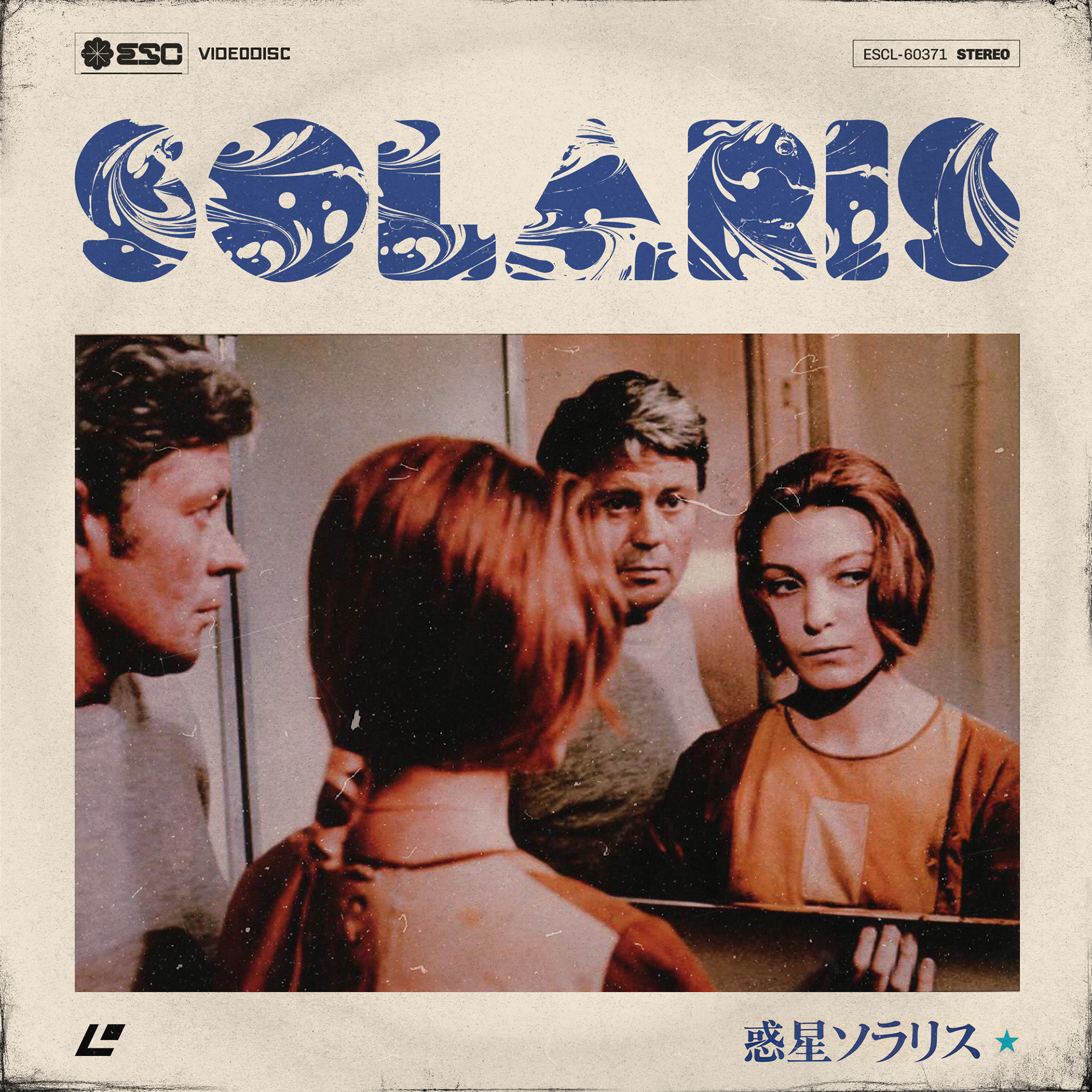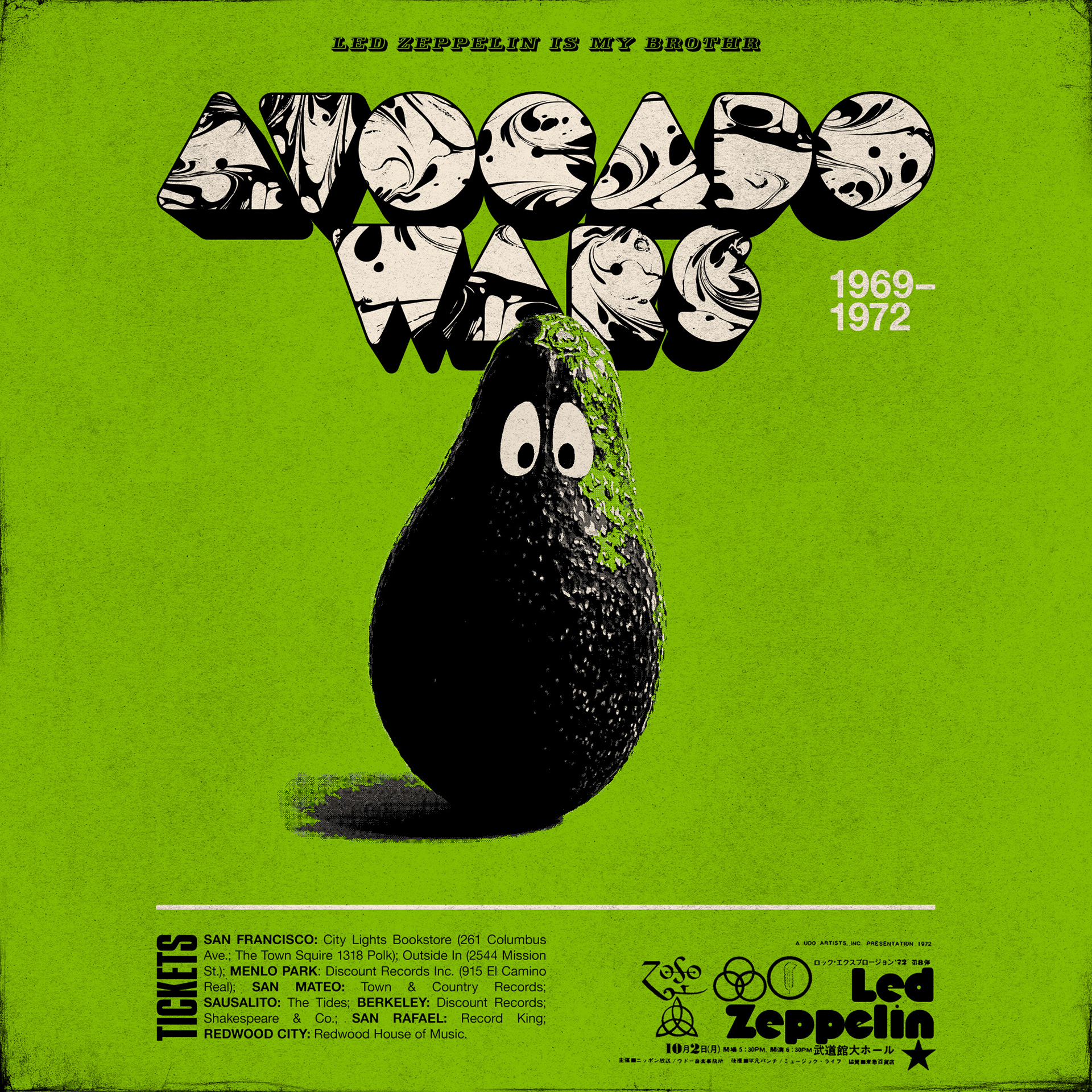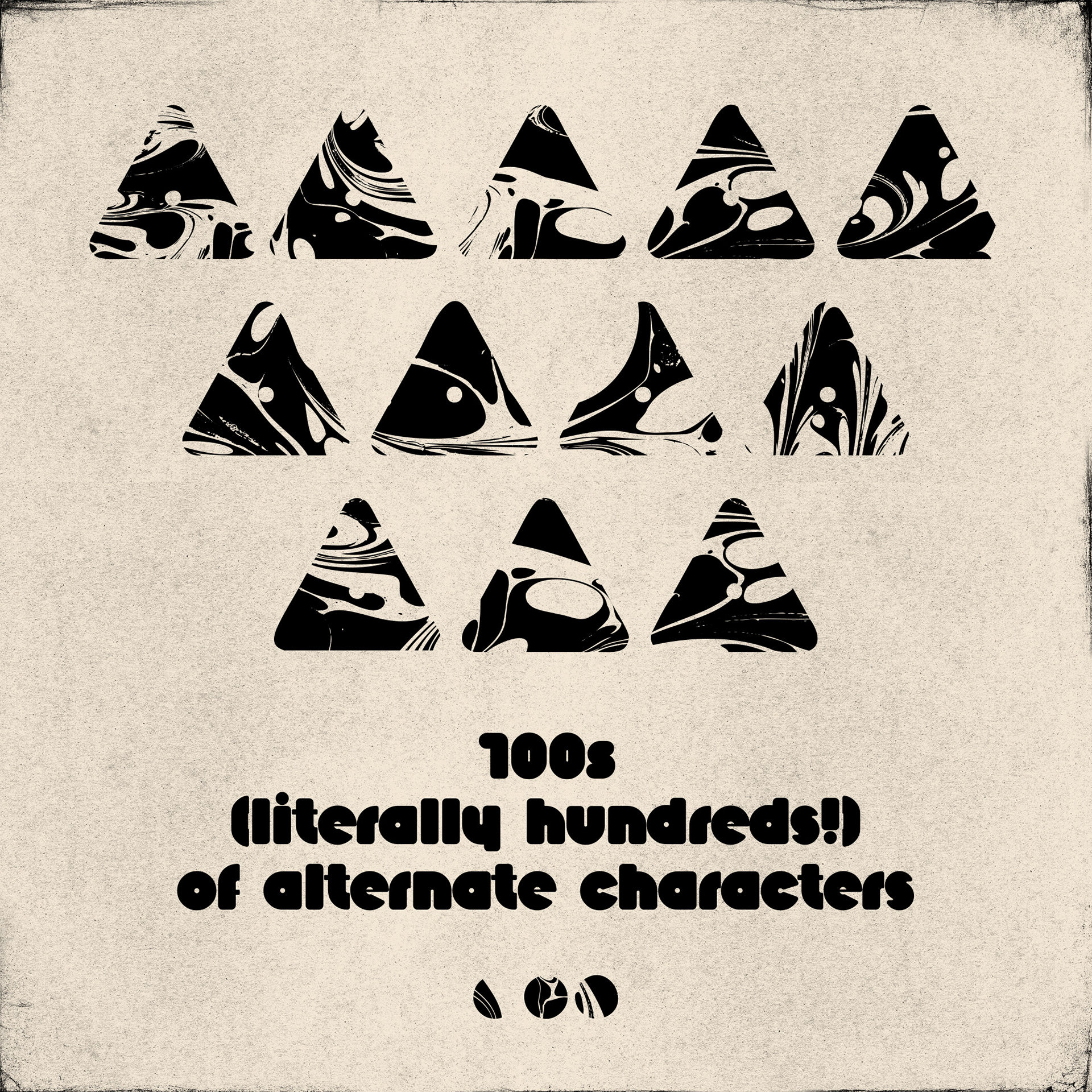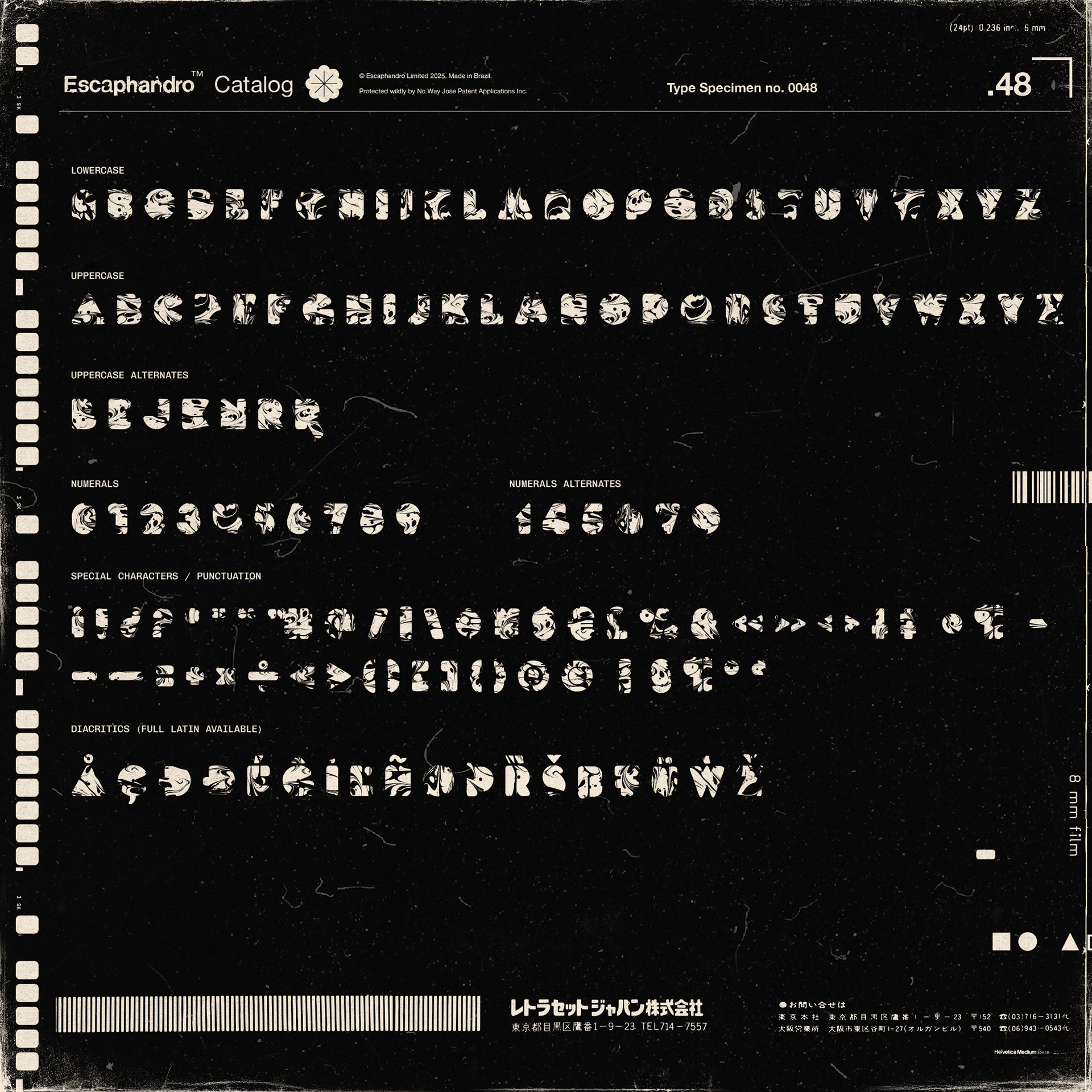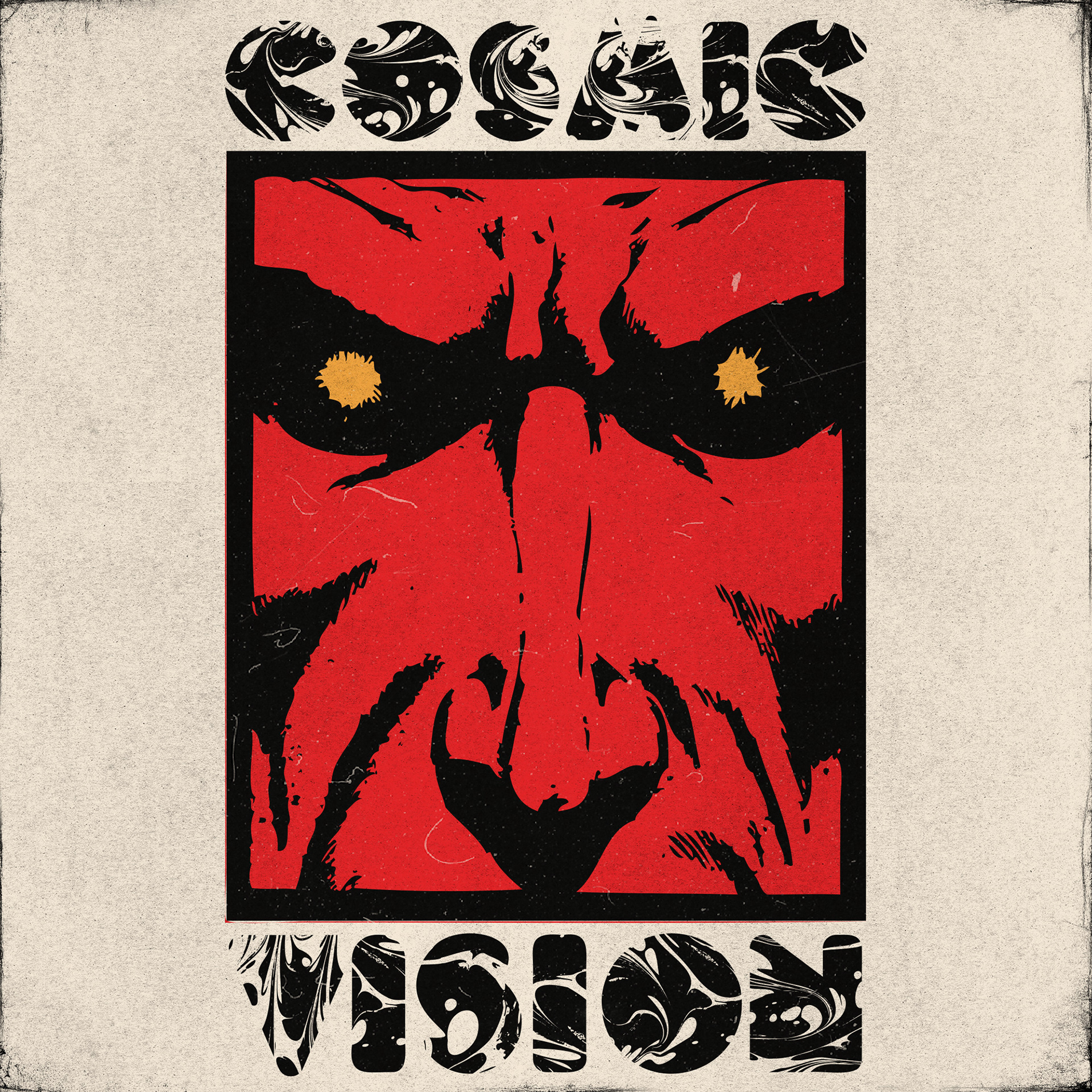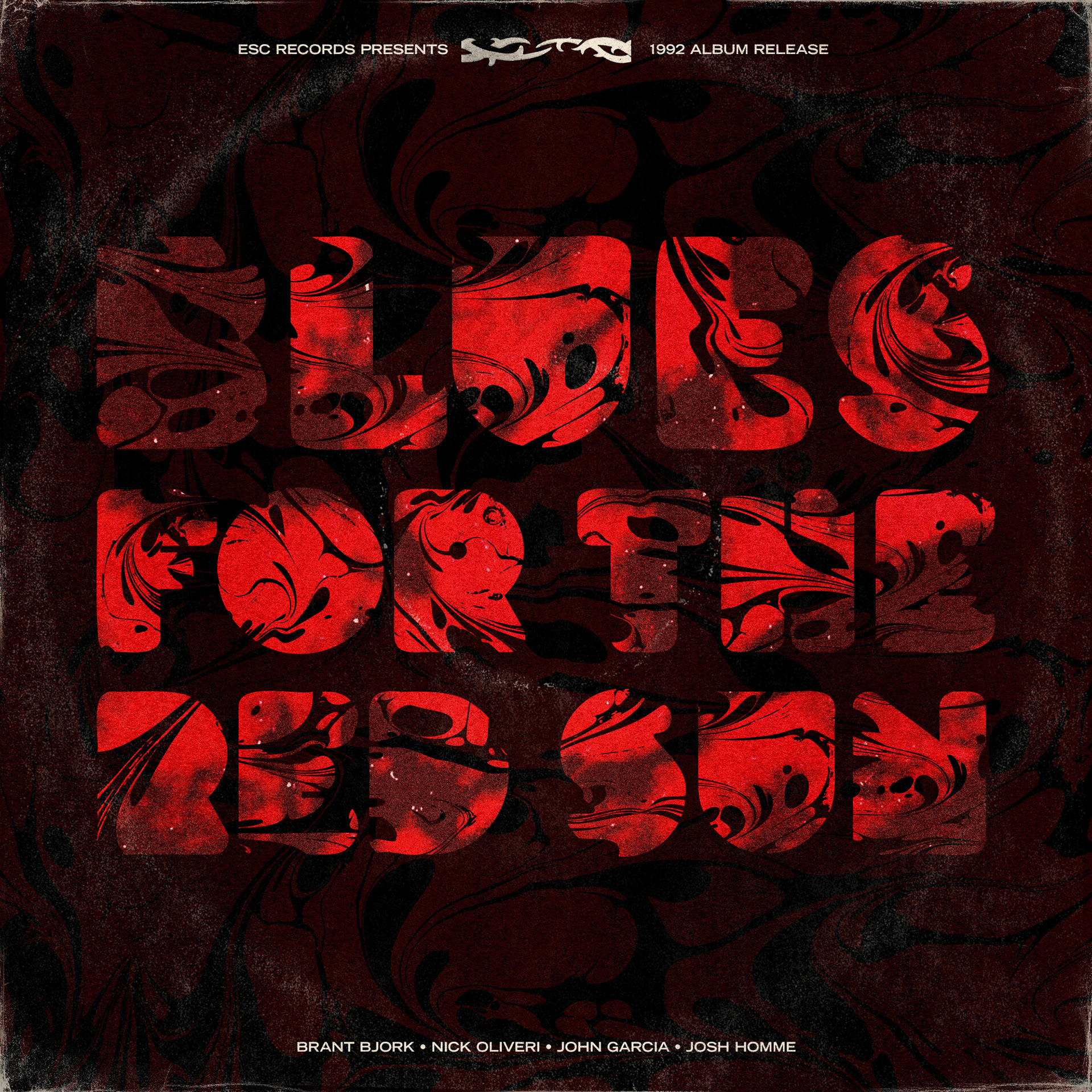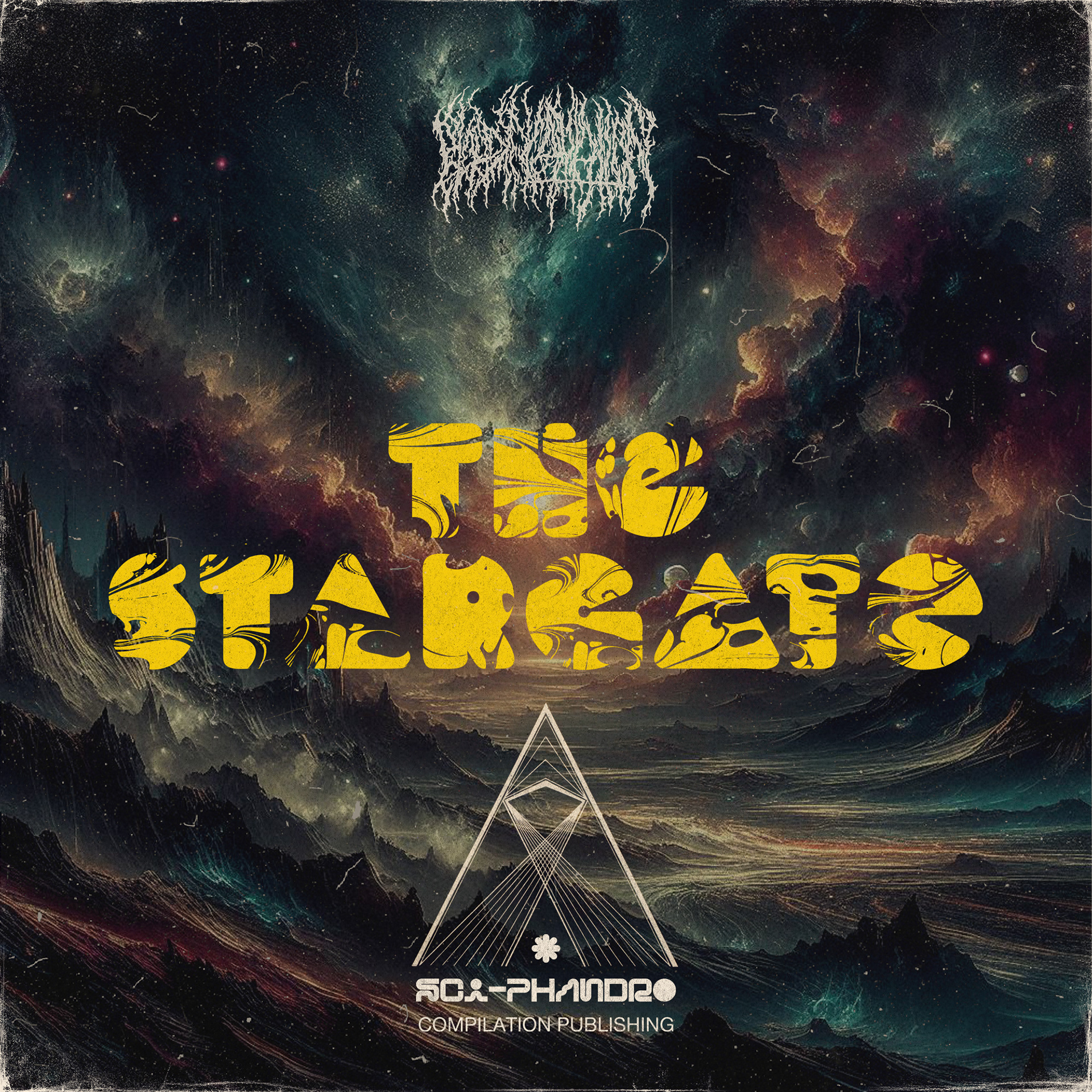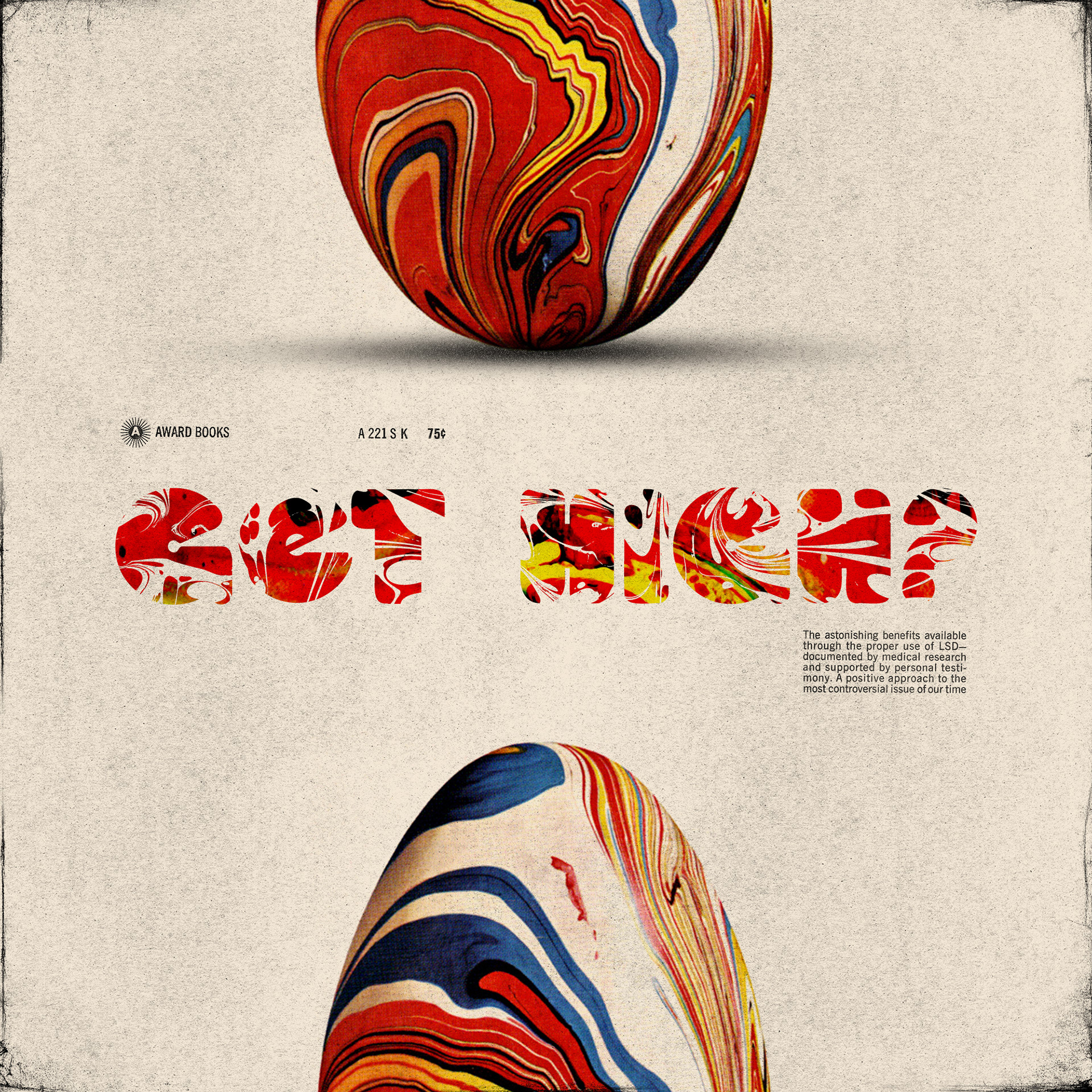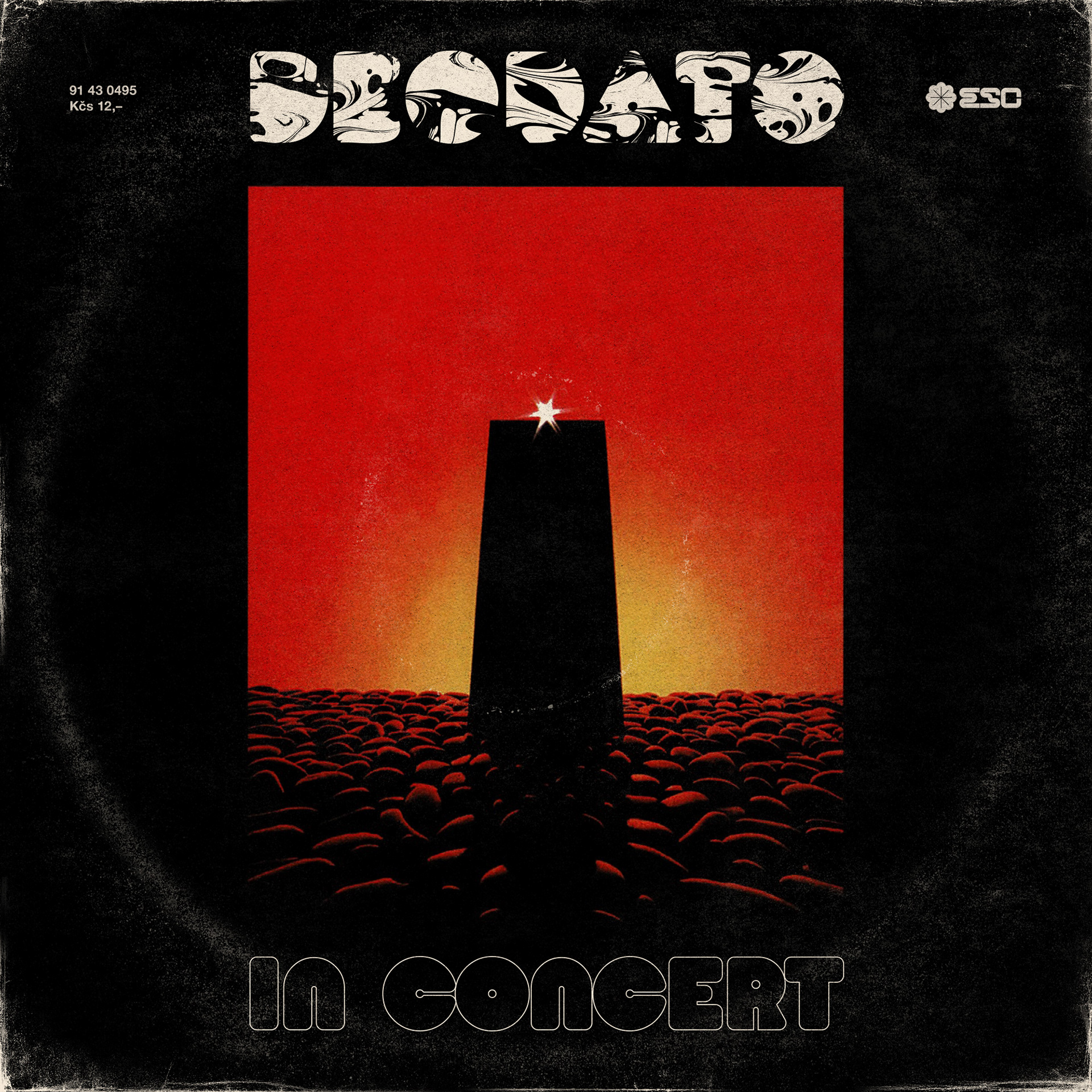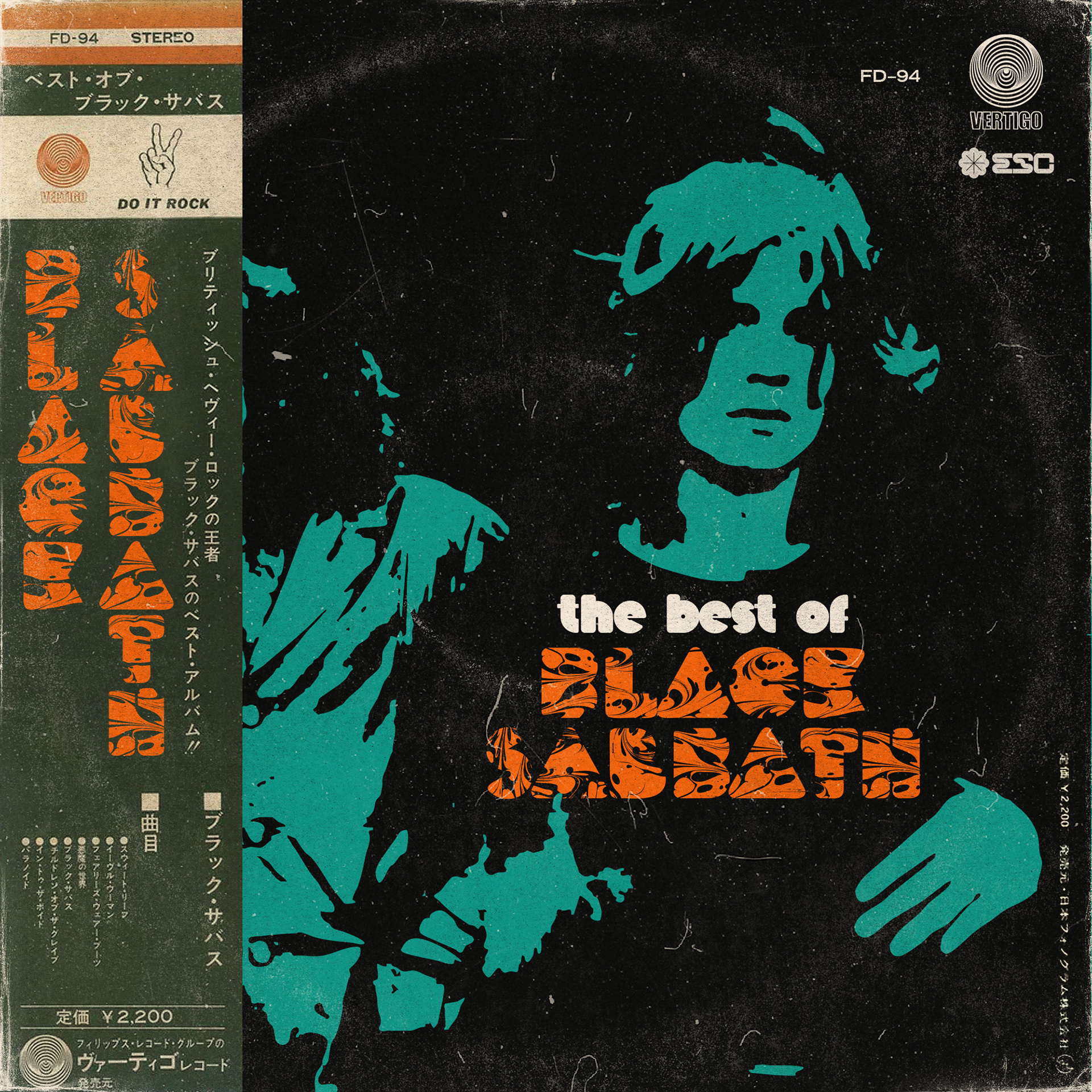
Volume Psych is a captivating display typeface, inspired by the psychedelic aesthetics of the 1960s and 70s, reminiscent of vintage music posters and era-defining letterings. This typeface builds on the foundation of Volume Round, adding an experimental flair that draws on the vibrant, free-spirited ambiance of the time.
Volume Psych is ideally suited for projects where impactful, large-scale typography is essential. Whether crafting distinctive logotypes or headline displays, this font offers a plethora of options with its extensive set of alternate characters, enriching its analog authenticity.
- Psychedelic Inspiration: Channeling the energetic spirit of 60s and 70s psychedelic art.
- Expandability: Boasts hundreds of alternate characters for customized designs.
- Applications: Perfect for logotypes and large format uses, ensuring a striking visual presence.
Embrace the retro-modern fusion of Volume Psych to evoke nostalgia while crafting bold, unmistakable typographic expressions.
Volume Psych is ideally suited for projects where impactful, large-scale typography is essential. Whether crafting distinctive logotypes or headline displays, this font offers a plethora of options with its extensive set of alternate characters, enriching its analog authenticity.
- Psychedelic Inspiration: Channeling the energetic spirit of 60s and 70s psychedelic art.
- Expandability: Boasts hundreds of alternate characters for customized designs.
- Applications: Perfect for logotypes and large format uses, ensuring a striking visual presence.
Embrace the retro-modern fusion of Volume Psych to evoke nostalgia while crafting bold, unmistakable typographic expressions.